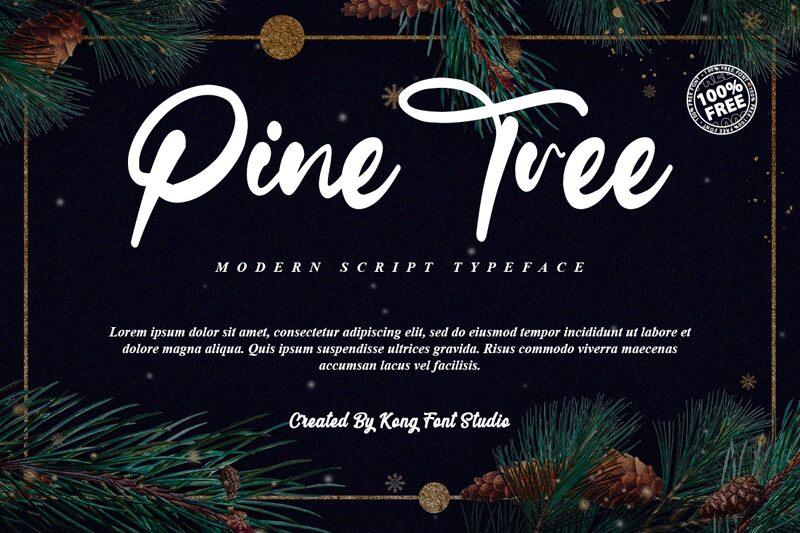
Pine Tree
Pine Tree, crafted by Kong Font, is a captivating modern script font that brings elegance and sophistication to your projects. Its semi-light weight adds a delicate touch while maintaining readability.
Ideal for wedding invitations, greeting cards, and branding materials, Pine Tree effortlessly adds a touch of grace and uniqueness to any design. With its flowing lines and stylish flourishes, this font enchants logos, product packaging, and fashion editorials alike.
Elevate your creations with Pine Tree's contemporary charm and leave a lasting impression on your audience.